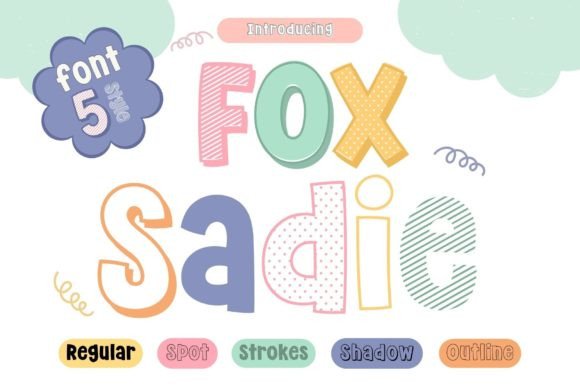
Introducing Fox Sadie Font: The Ultimate Display Font for Creative Designs
Are you looking for a font that can add a captivating and energetic touch to your designs? Look no further than Fox Sadie Font, a 5-style font that is cool, cute, and playful. This display font is perfect for use in various design projects, including publications, menus, logos, business cards, and even printed on t-shirts. In this article, we will explore the features and benefits of Fox Sadie Font and how it can elevate your designs to the next level.
What is Fox Sadie Font?
Fox Sadie Font is a 5-style display font that is designed to add a unique and energetic touch to your designs. Its vibrant and expressive design makes it perfect for creating attention-grabbing headlines, t-shirt typography, banners, product labels, and more. The font is cool, cute, and playful, making it suitable for a wide range of design projects.
Key Features of Fox Sadie Font
Fox Sadie Font has several key features that make it an excellent choice for designers. Some of its main features include:
- 5 Style Options: Fox Sadie Font comes with 5 style options, allowing you to choose the one that best fits your design needs.
- Vibrant and Expressive Design: The font has a vibrant and expressive design that is sure to grab attention.
- Cool, Cute, and Playful: Fox Sadie Font is cool, cute, and playful, making it perfect for designs that require a fun and energetic touch.
- Unique and Energetic: The font adds a unique and energetic touch to your designs, making them stand out from the crowd.
Uses of Fox Sadie Font
Fox Sadie Font is a versatile font that can be used in various design projects. Some of the uses of Fox Sadie Font include:
- Publications: Fox Sadie Font can be used in publications such as magazines, newspapers, and brochures.
- Menus: The font can be used in menus for restaurants, cafes, and bars.
- Logos: Fox Sadie Font can be used to create logos for businesses, organizations, and brands.
- Business Cards: The font can be used in business cards to add a unique and energetic touch.
- T-Shirts: Fox Sadie Font can be printed on t-shirts to create fun and stylish designs.
Benefits of Using Fox Sadie Font
Using Fox Sadie Font in your designs comes with several benefits. Some of the benefits include:
- Unique Designs: Fox Sadie Font allows you to create unique and eye-catching designs that stand out from the crowd.
- Attention-Grabbing: The font’s vibrant and expressive design makes it perfect for creating attention-grabbing headlines and titles.
- Fun and Energetic: Fox Sadie Font adds a fun and energetic touch to your designs, making them more engaging and appealing.
- Versatile: The font is versatile and can be used in various design projects, making it a great addition to your font collection.
Tips for Using Fox Sadie Font
Here are some tips for using Fox Sadie Font in your designs:
- Use it for Headlines: Fox Sadie Font is perfect for creating attention-grabbing headlines and titles.
- Pair it with Other Fonts: The font can be paired with other fonts to create a unique and stylish design.
- Experiment with Colors: Fox Sadie Font can be used with different colors to create a bold and eye-catching design.
- Use it for Branding: The font can be used in branding projects to create a unique and memorable logo.
In conclusion, Fox Sadie Font is a 5-style display font that is cool, cute, and playful. Its vibrant and expressive design makes it perfect for creating attention-grabbing headlines, t-shirt typography, banners, product labels, and more. The font is versatile and can be used in various design projects, making it a great addition to your font collection. With its unique and energetic design, Fox Sadie Font is sure to elevate your designs to the next level.
- What is Fox Sadie Font? Fox Sadie Font is a 5-style display font that is cool, cute, and playful.
- What are the uses of Fox Sadie Font? Fox Sadie Font can be used in publications, menus, logos, business cards, and even printed on t-shirts.
- What are the benefits of using Fox Sadie Font? Using Fox Sadie Font in your designs comes with several benefits, including unique designs, attention-grabbing, fun and energetic, and versatile.